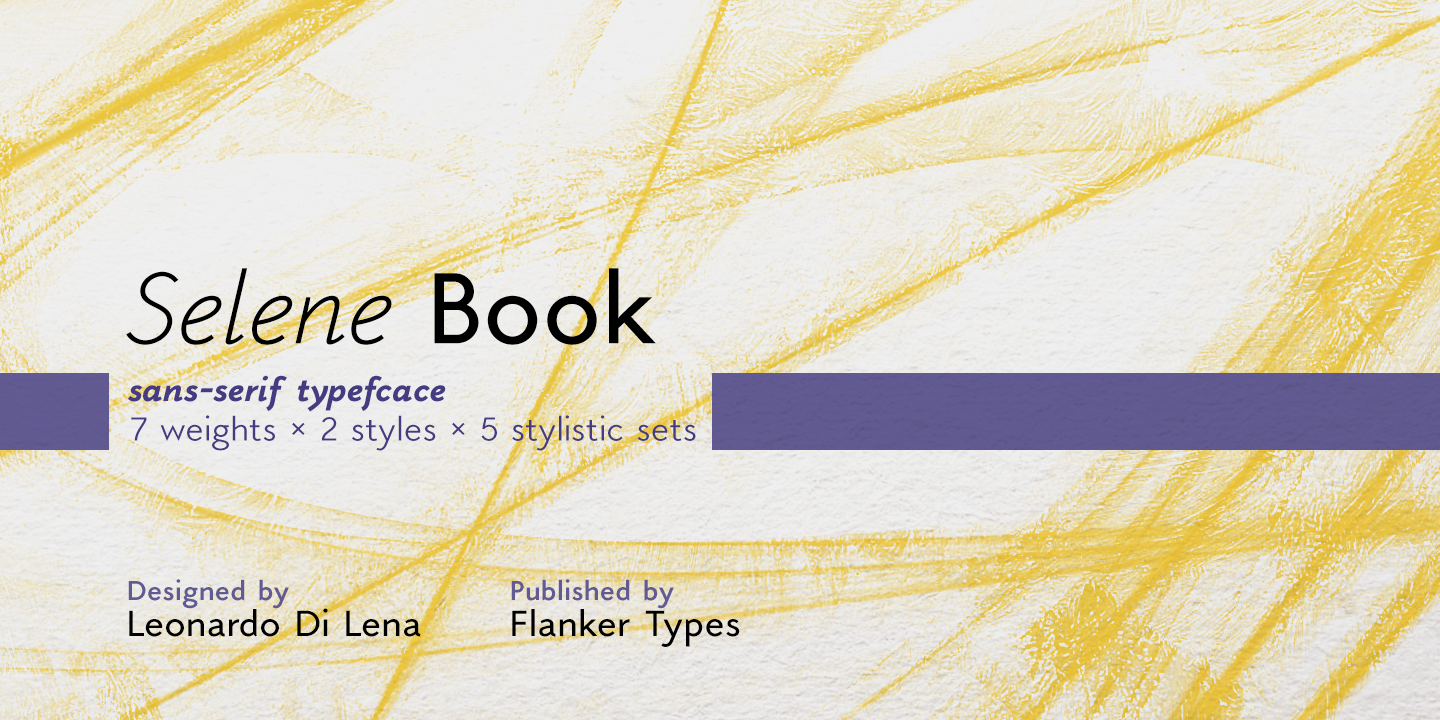
The Selene Book Font excels in various design applications including literary publishing projects, elegant book typography, moonlit romance novels, mystical fantasy publications, scholarly academic texts, sophisticated magazine layouts, literary journal designs, celestial poetry collections, enchanting children's books, and distinguished editorial projects that demand lunar elegance and literary sophistication.
What makes the Selene Book Font exciting is its perfect embodiment of literary grace and celestial beauty through letterforms that capture the serene elegance of moonlight and the timeless appeal of classical book typography. This typeface demonstrates exceptional readability through carefully crafted characters that suggest the gentle glow of lunar illumination, the peaceful contemplation of nighttime reading, and the ethereal beauty that makes literature a transcendent experience. The font's literary personality makes it perfect for publishers and authors seeking to communicate intellectual sophistication, reading pleasure, and the kind of celestial elegance that transforms ordinary text into beautiful literary experiences through typography that literally glows with moonlit grace.
The Selene Book Font family typically includes comprehensive weight variations optimized for extended reading, featuring elegant italic styles and extended character sets supporting diverse literary applications and international publishing requirements. These family options often include scholarly alternates, literary ligatures, and celestial decorative elements that provide designers with comprehensive tools for creating authentically literary typography that celebrates the art of reading while maintaining optimal legibility and contemporary publishing standards.
Publishing professionals and literary organizations consistently select Selene Book Font Free Download for projects requiring typography that communicates literary excellence and reading sophistication. This typeface delivers exceptional performance in book design, academic publishing, and literary communications where establishing intellectual credibility and creating pleasurable reading experiences is essential for reader engagement. The font's celestial character makes it particularly effective for poetry and fantasy literature applications. Download Selene Book Font Free Download today to access this luminous typeface that transforms literary communications with its moonlit elegance and scholarly sophistication, creating compelling reading experiences that honor the timeless beauty of literature while maintaining the serene grace that makes books a source of enlightenment and celestial wonder.